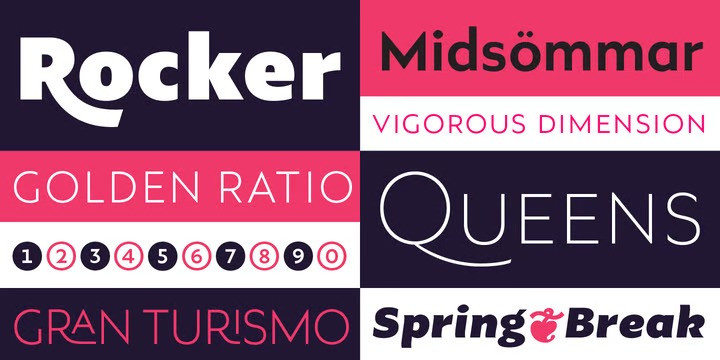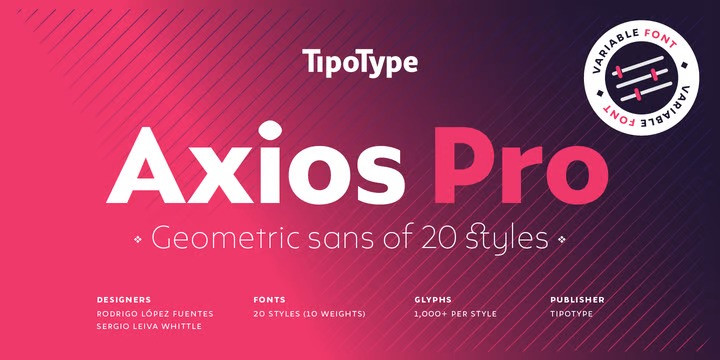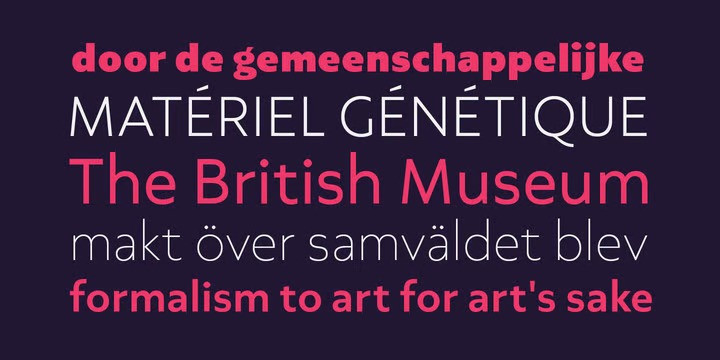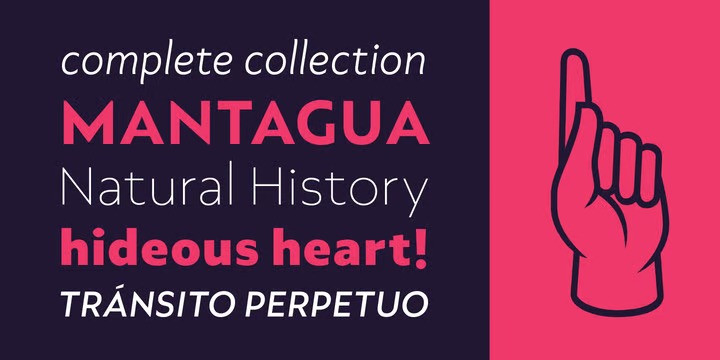
Axios Pro Font Family
Axios Pro Sans Serif Font is sans serif inspired by future techno and sport great. The uppercase proportions proceed form the roman canon while its lowercase was constructed following the humanist ductus. This blend produce a typeface of modern, clean and contemporary appearance that has implicit on its core a classic vibe, nourishing the text with a timeless elegance.In use, the form and function balance of its design allow it freely travel through a diverse range of fields and possibilities like short text settings, brands, headlines or signage systems with grace and naturality.